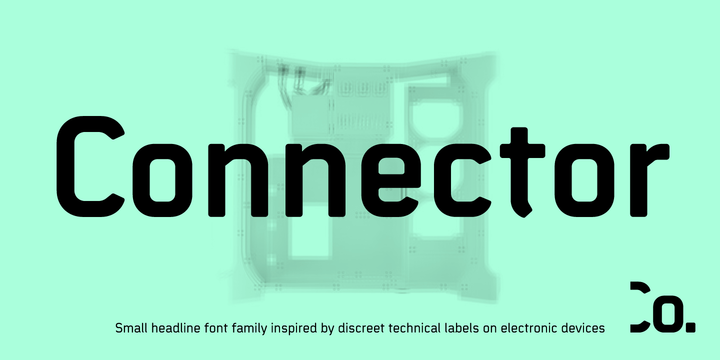
Connector
by Roman Černohous
Small headline font family inspired by discreet unobtrusive technical labels on various electronic devices. It is recognizable for its geometrical character complemented with surprising detail. Suitable for designing printed matters, posters, magazines and visual data output.